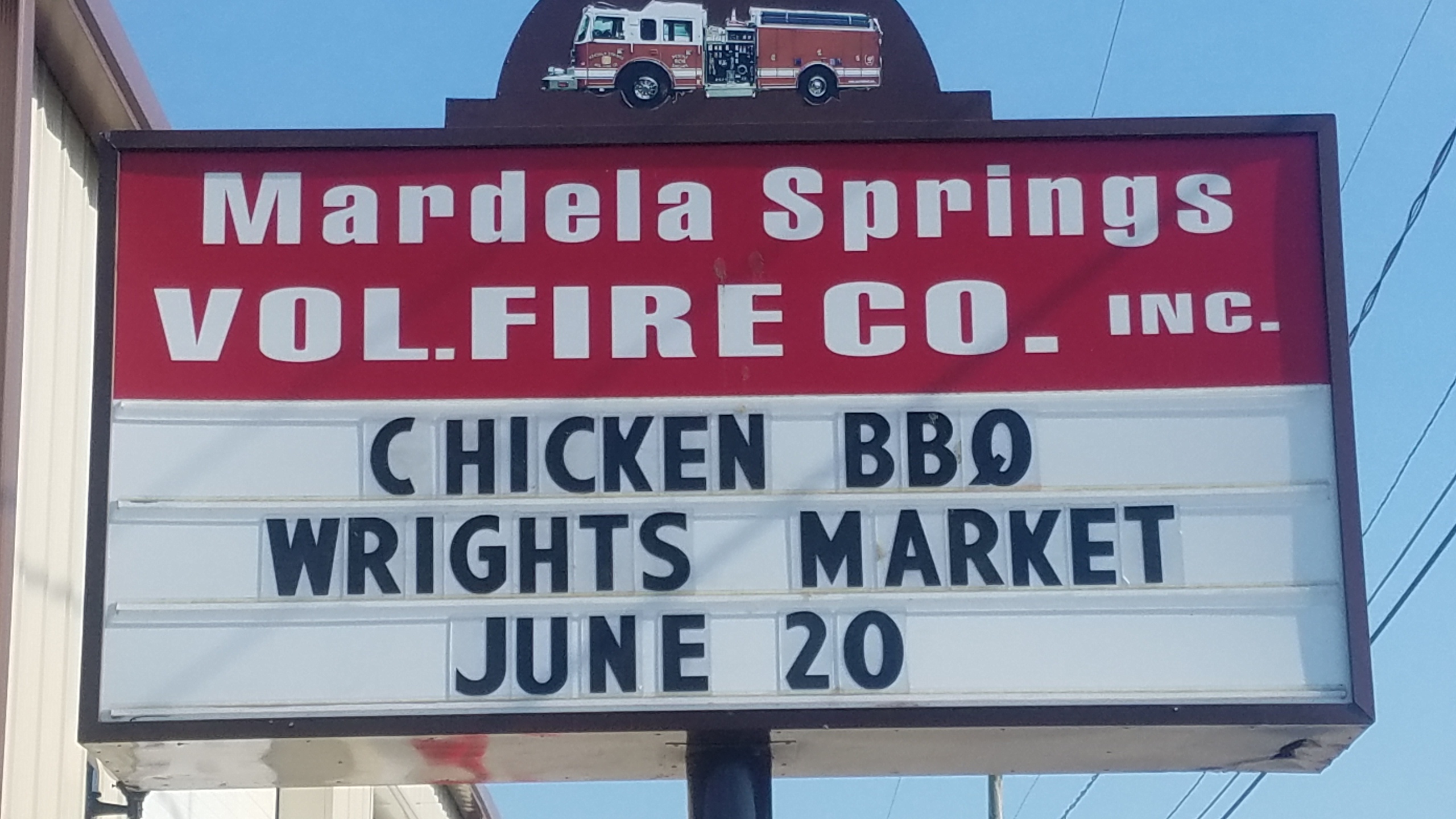
Need help with font please
I have been away from the art desk for quite a few years but due to all the shutdowns I find myself filling that roll again. Sad part is we made this sign back in 2014 so normally I would have the file already but I had a catastrophic loss of files later that year due to a ransomware attack. I am sure I will eventually find the correct style but thought I would try my luck here 1st. Thanks in advance for any help.
Could it be Haettenschweiler compressed a bit? It also looks like swiss911 or even Helvetica LT Pro both with some compression.
Looks like IMPACT spaced/stretched